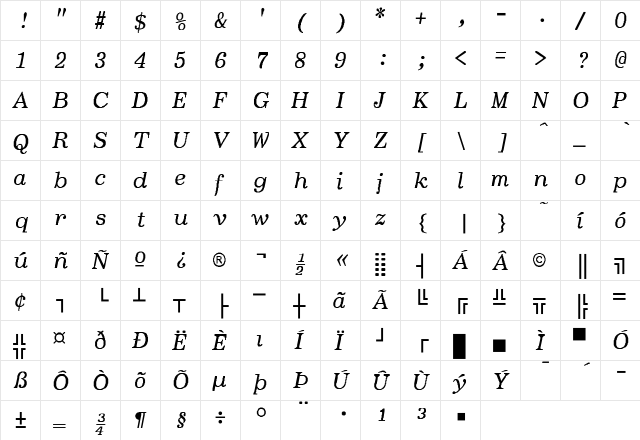
BoldfaceItalic-SemiBold-Italic Regular Font Preview
Design Context for BoldfaceItalic-SemiBold-Italic Typeface
BoldfaceItalic-SemiBold-Italic takes a measured approach to typography — its balanced proportions and neutral character make it a reliable workhorse for both digital and print work. The slanted form adds forward momentum and visual energy. The heavy weight commands attention and anchors typographic hierarchies.
Pro Tip: Try BoldfaceItalic-SemiBold-Italic for annotation and caption copy alongside an upright companion — the contrast in angle creates a dynamic but ordered typographic system.